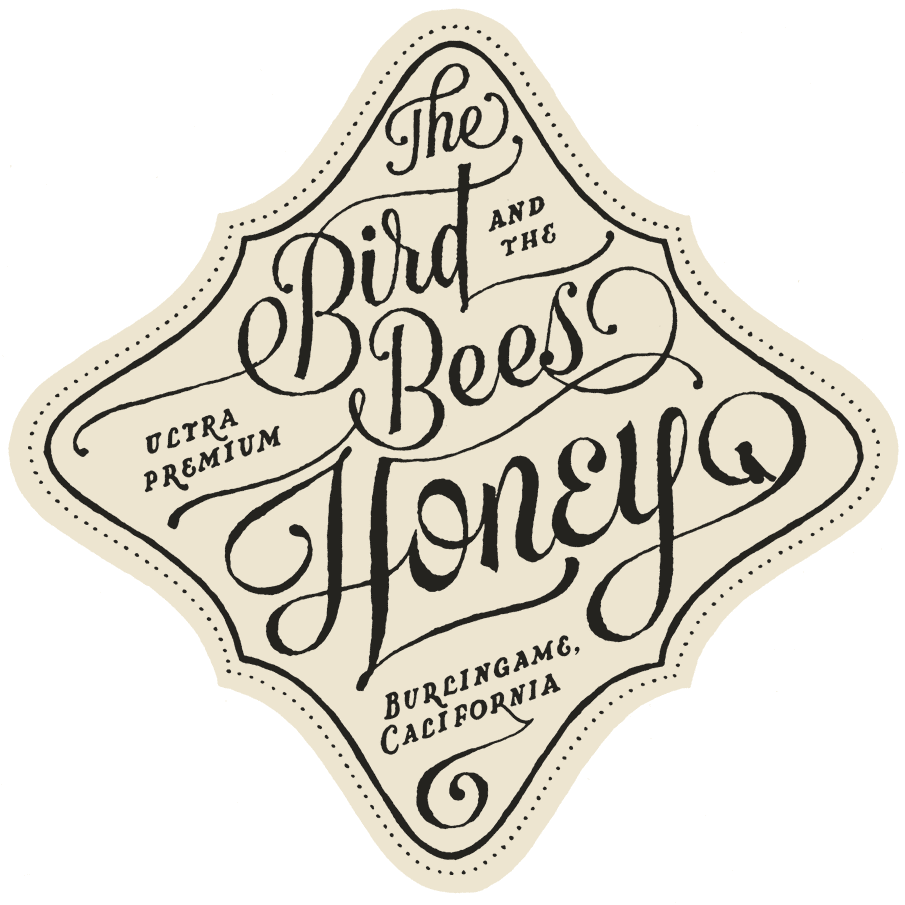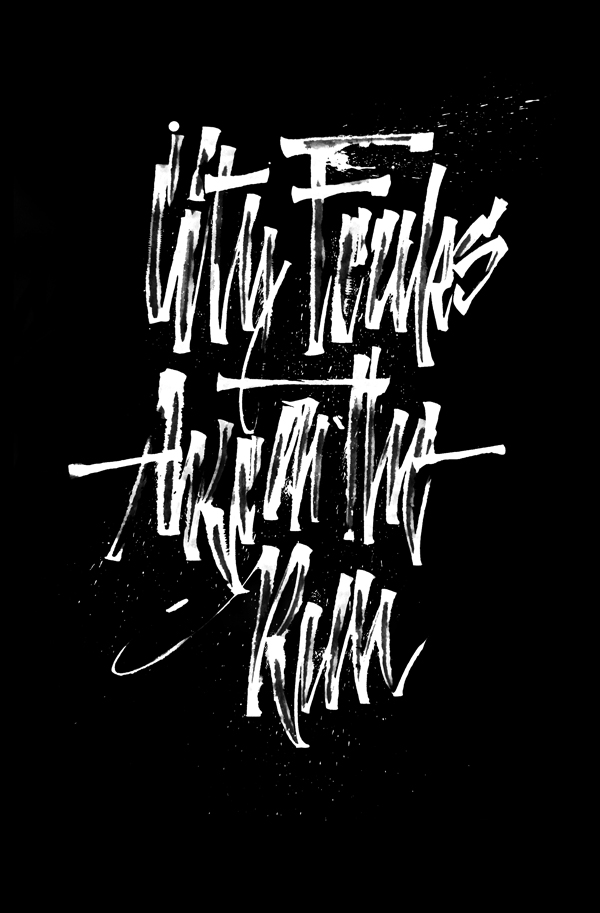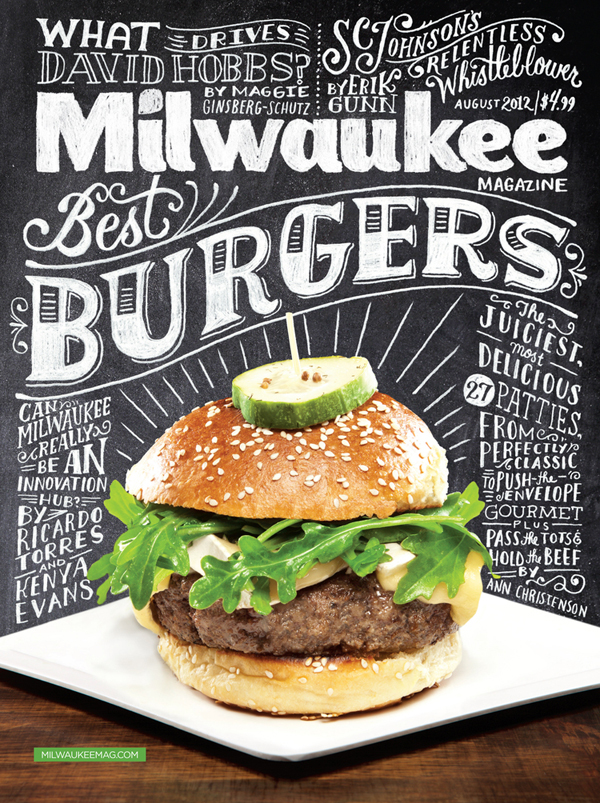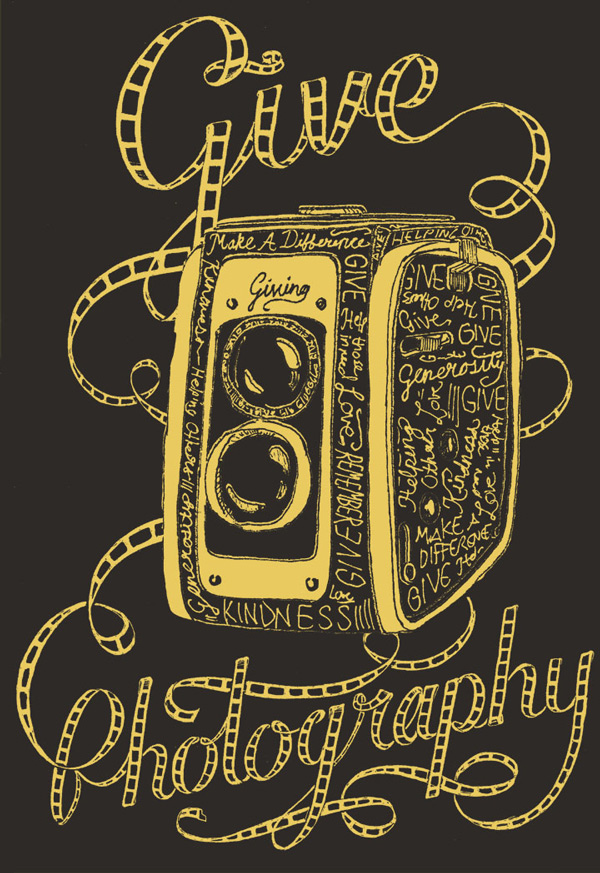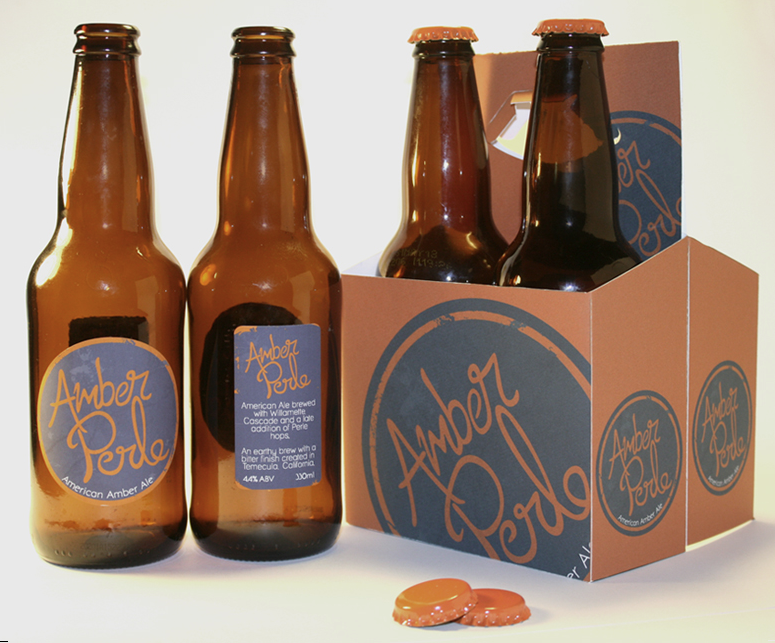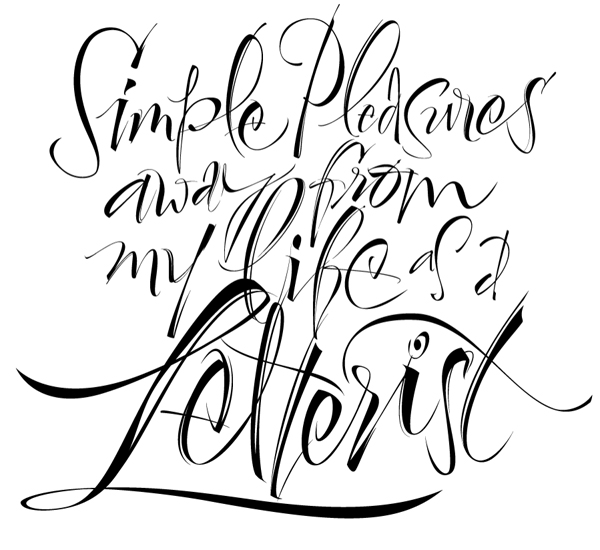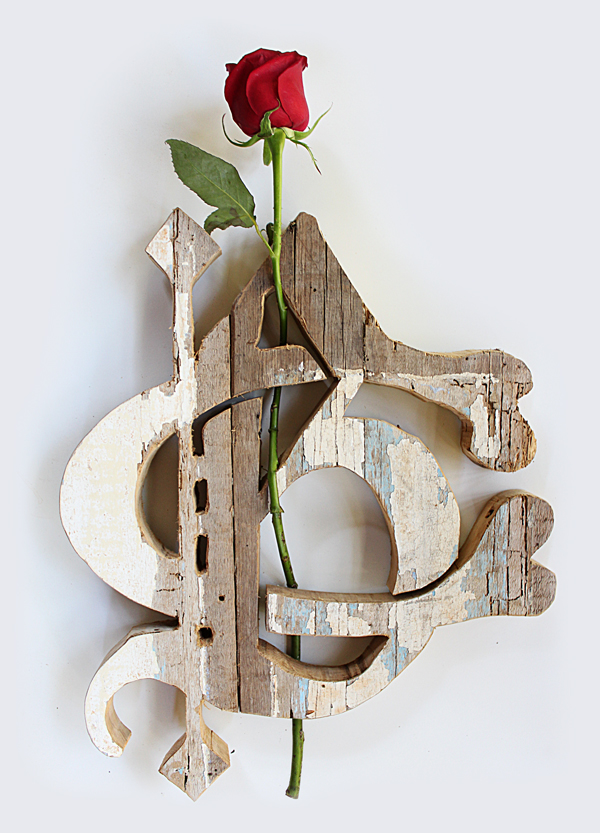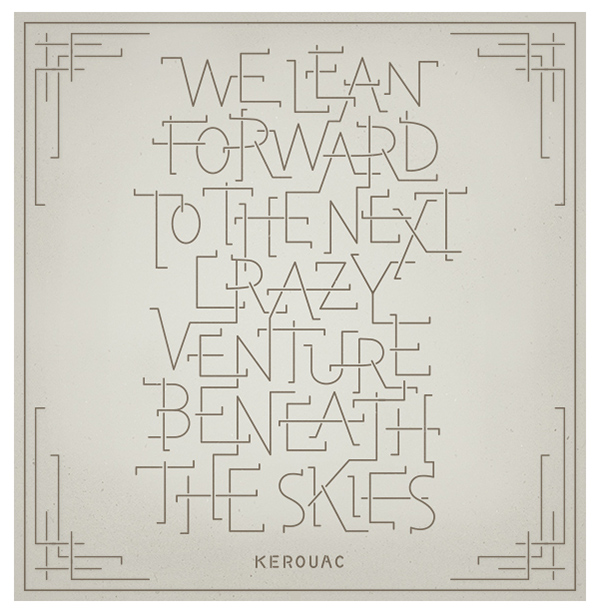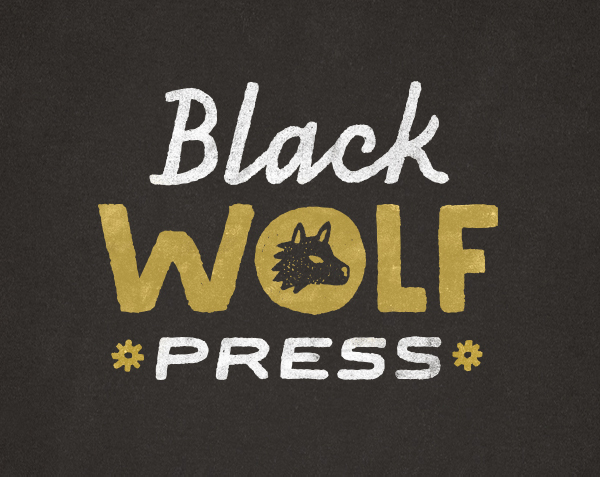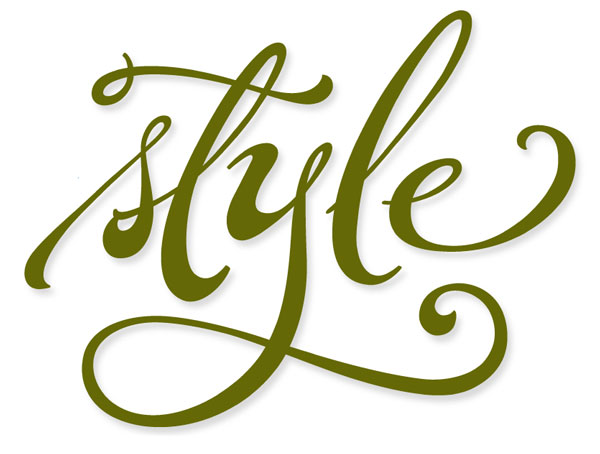
DIRTY BANDITS
SHOE MEULMAN
ORIOL MIRĂ“
THEOSONE
JAY ROEDER
BORIS PELCER
CHARLES BORGES DE OLIVEIRA
MATTHEW TAPIA
MARY KATE McDEVITT
ROB CLARKE
STEFAN MATZDORF
RUTGER PAULUSSE
STEPHEN RAPP
MIKHAIL KARAGEZYAN
TYPE JOCKEYS
ALEXIS TAIEB / TYRSA
GERREN LAMSON
ANDREI ROBU
JAMES EDMONDSON
BETO JANZ
JOEL VILAS BOAS
SERGI FERRANDO
JOSEPH ALESSIO
MICHAEL WILLIAMS
BECCA CLASON
DANIEL GNEIDING
STEVE DeCUSATIS
BOBBY HAIQALSYAH
ALAN ARIAIL
Elegant and original graphics combining high skill with conceptual imagery.